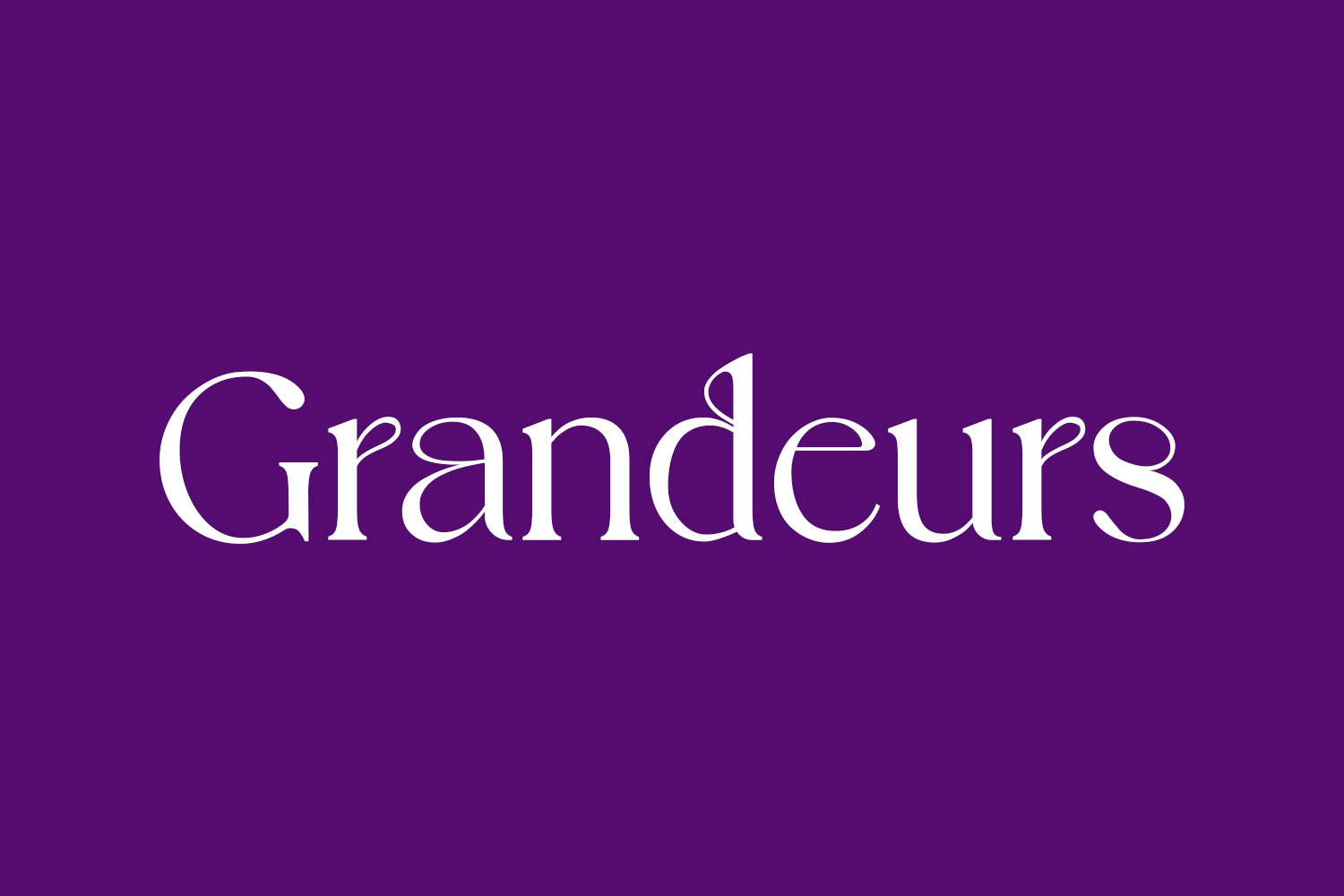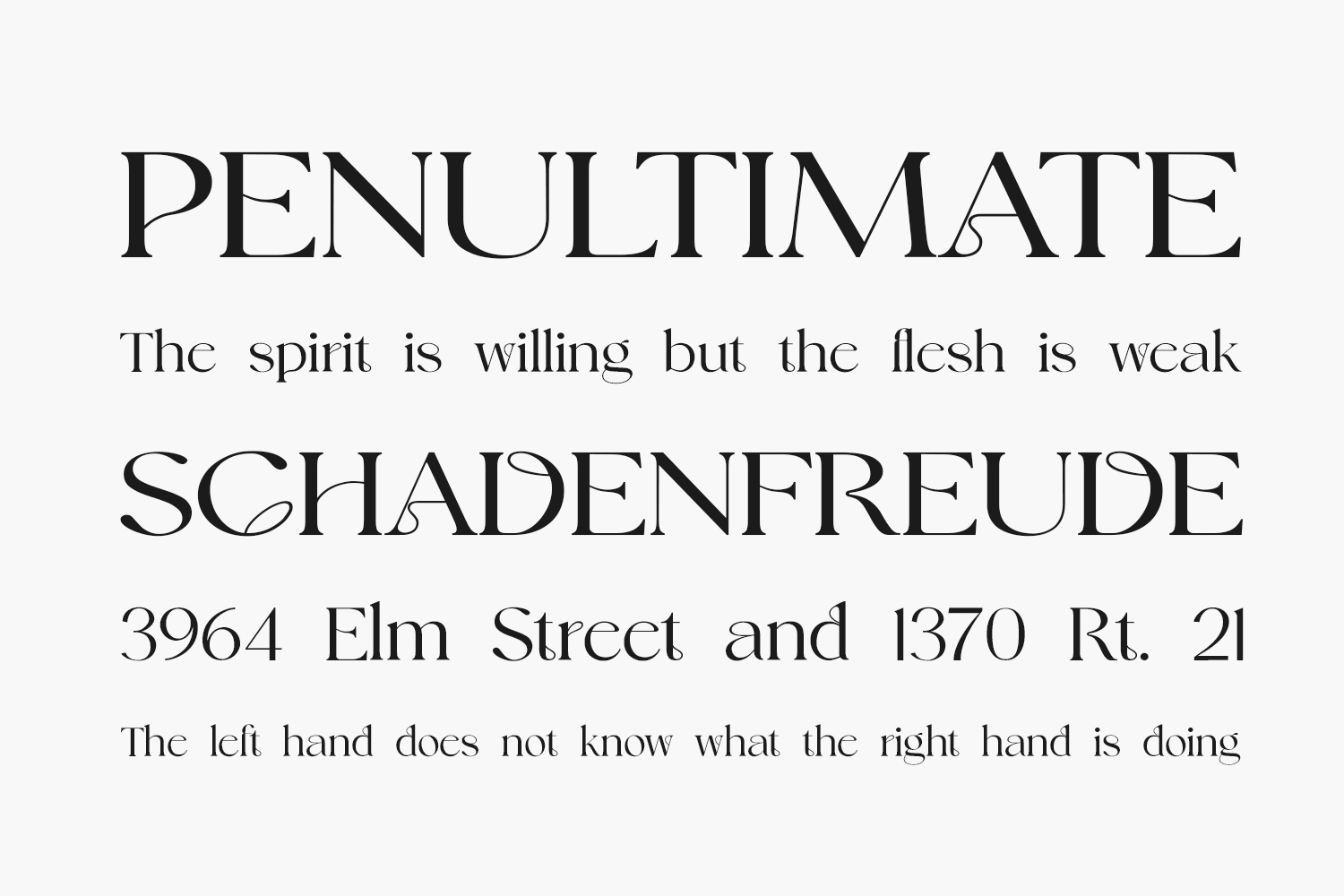
Grandeurs Free Font – Bold Sans Serif for Strong Typography
Grandeurs is a bold and modern sans-serif typeface designed by UI Creative to bring strong presence and clarity to your creative projects. With its clean lines, structured weight, and high legibility, this free decorative font works perfectly for crafting stylish logos, magazine headers, digital interfaces, brand kits, and more. Available in TTF format — ideal for designers seeking a professional, readable font that enhances legibility without overpowering your layout.
Why Choose Grandeurs?
- Bold Minimalist Style: Combines sharp geometry with thick strokes for a confident, professional appearance.
- Ideal for Display Design: Perfect for large text applications like billboards, posters, or digital banners needing visibility from a distance.
Where to Use Grandeurs?
Grandeurs shines across a variety of design applications:
- Logos & Brand Identity: Adds confidence to brand identities for tech startups, lifestyle blogs, or fashion labels needing a modern tone.
- Digital Interfaces: Ideal for web headers, app typography, or landing page buttons where clear communication is essential.
- Poster Design: Designed for maximum visibility — makes headlines pop in outdoor advertising.
- Social Media Graphics: Creates bold text overlays for Instagram Stories, TikTok videos, or YouTube thumbnails with a crisp, stylish look.
- Packaging Design: Enhances product tags on novelty items, beverage cans, or streetwear labels requiring an edgy touch.
Design Tips with Grandeurs
- Glyphs: Uppercase (A-Z), lowercase (a-z), numerals, punctuation, basic Latin characters.